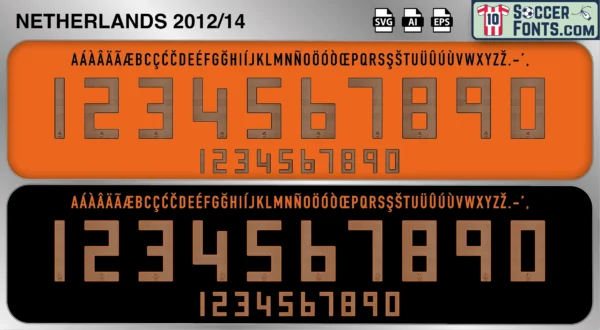
Netherlands 2012-14 Font
The Netherlands 2012-14 font is an editable soccer jersey lettering design in vector format inspired by the Netherlands kit style used during the 2012-14 football seasons. This football font artwork is prepared for football shirt recreations, custom jersey projects, football kit mockups and sports graphic design workflows.
The 2012-14 period began after UEFA EURO 2012 and marked the start of a new chapter for the Dutch national team. Despite entering the tournament with high expectations, the Netherlands experienced a disappointing campaign and subsequently underwent a period of tactical and structural adjustment. Experienced players such as Arjen Robben, Robin van Persie, Wesley Sneijder and Nigel de Jong remained central figures, while younger talents continued emerging within the national setup. Under Louis van Gaal, the Dutch national team rebuilt its identity and developed a more flexible approach ahead of the 2014 FIFA World Cup in Brazil.
The Netherlands 2012-14 font became associated with the road to one of the most memorable World Cup campaigns in modern Dutch football history. During qualification and preparation for Brazil, the Netherlands successfully blended experienced leaders with new talent while maintaining the technical quality and football culture that have long defined the nation. Netherlands shirts from this era remain highly collectible because of their connection with Van Gaal’s rebuilding project and the beginning of the journey that would lead to an outstanding World Cup performance in 2014. The Netherlands 2012-14 font reflects a period of resilience, adaptation and renewed ambition as Dutch football prepared to return to the global spotlight.